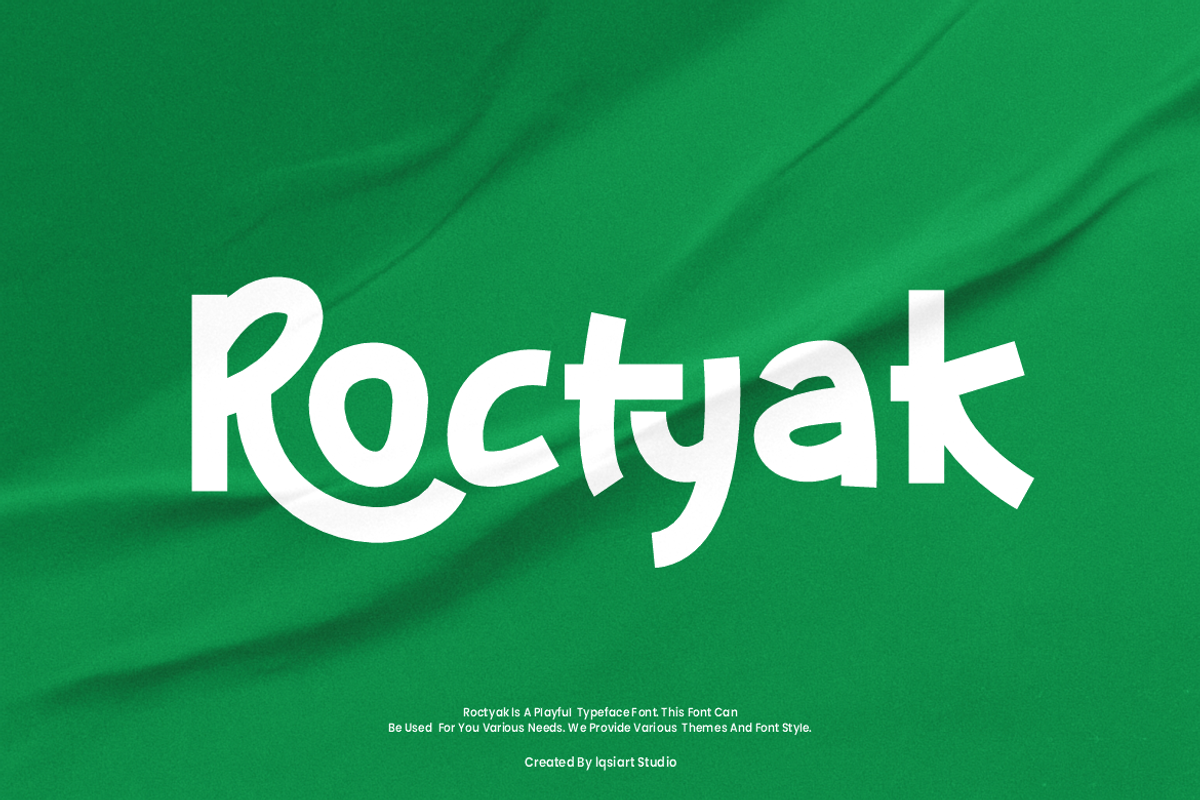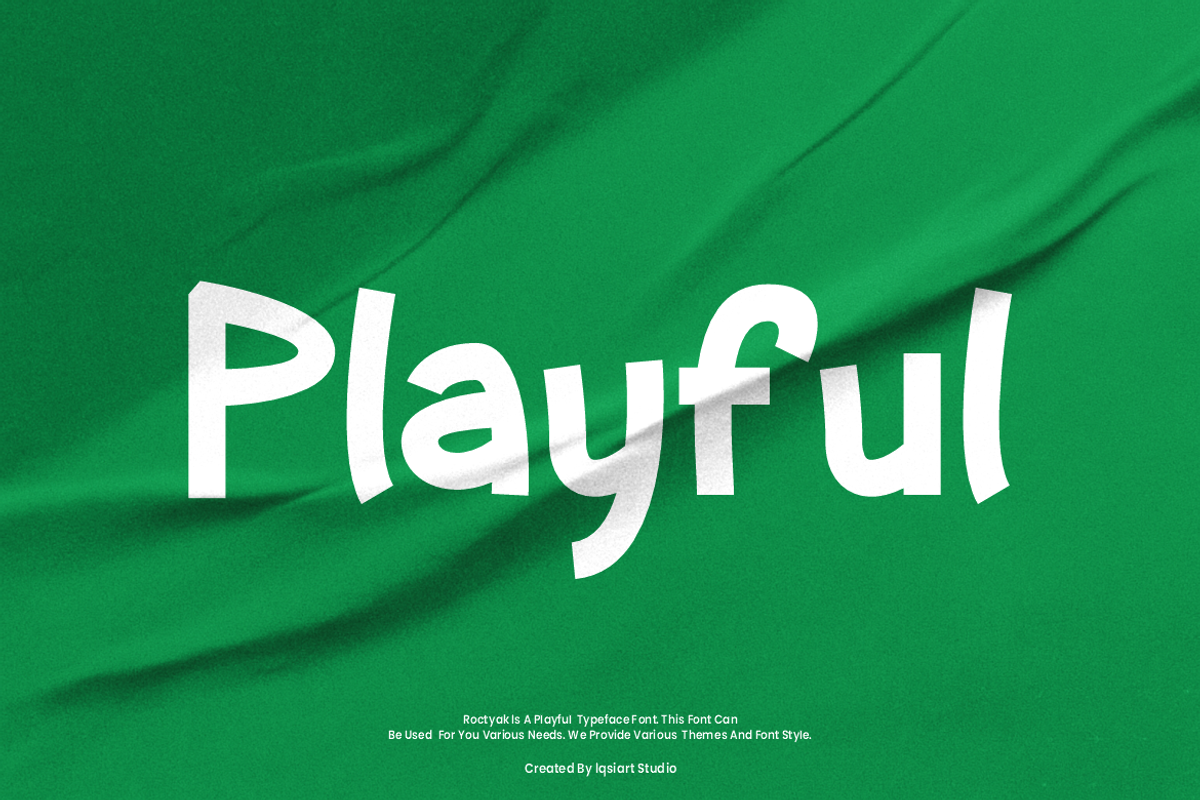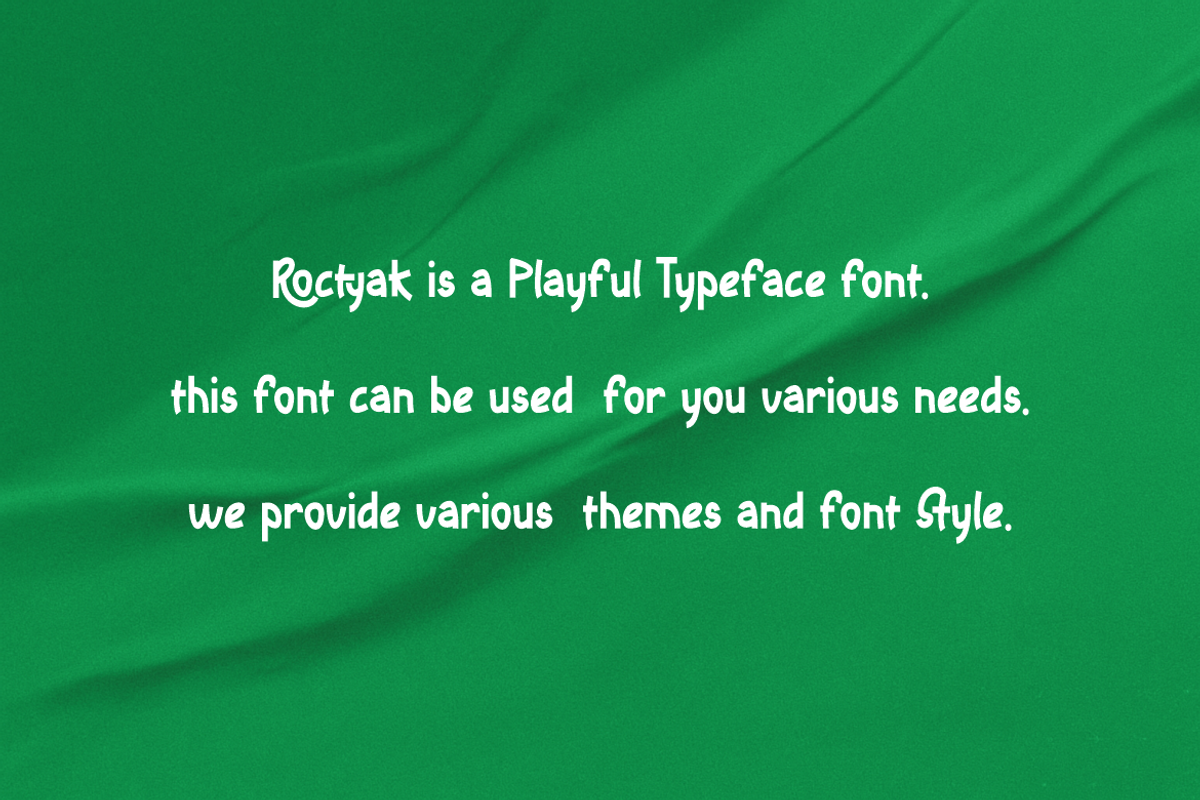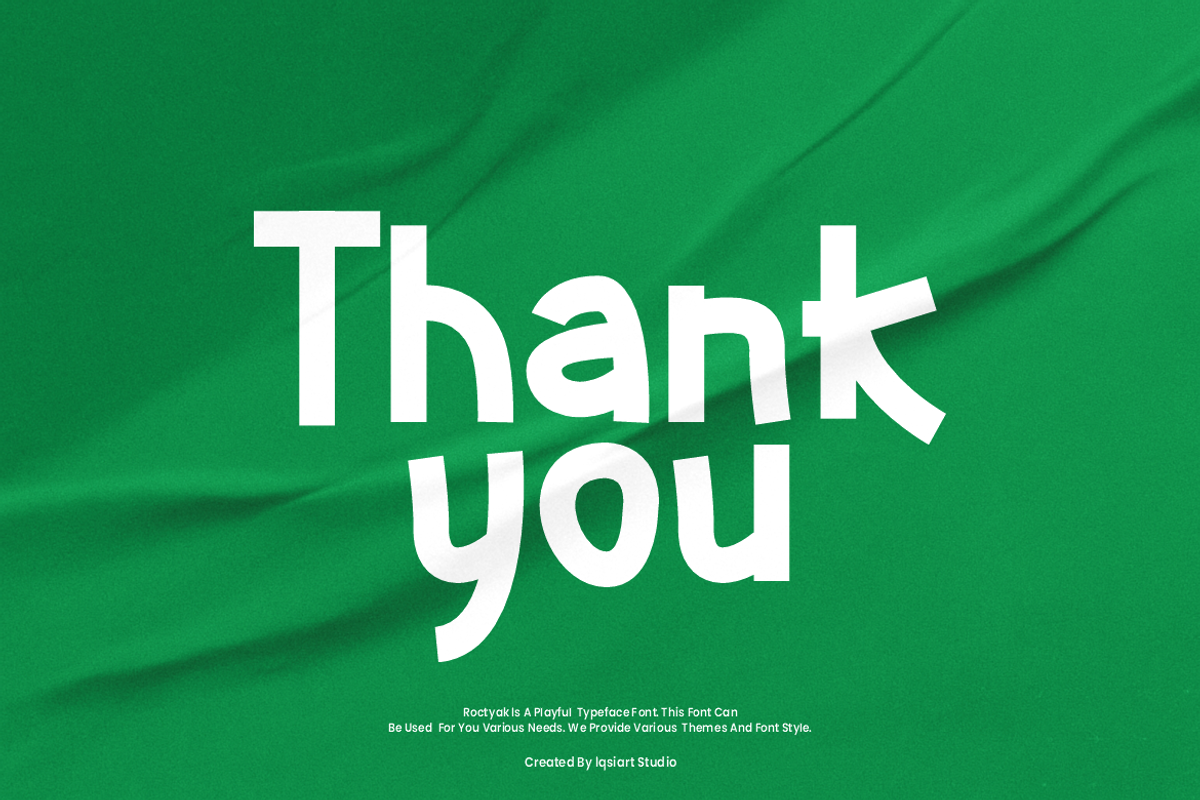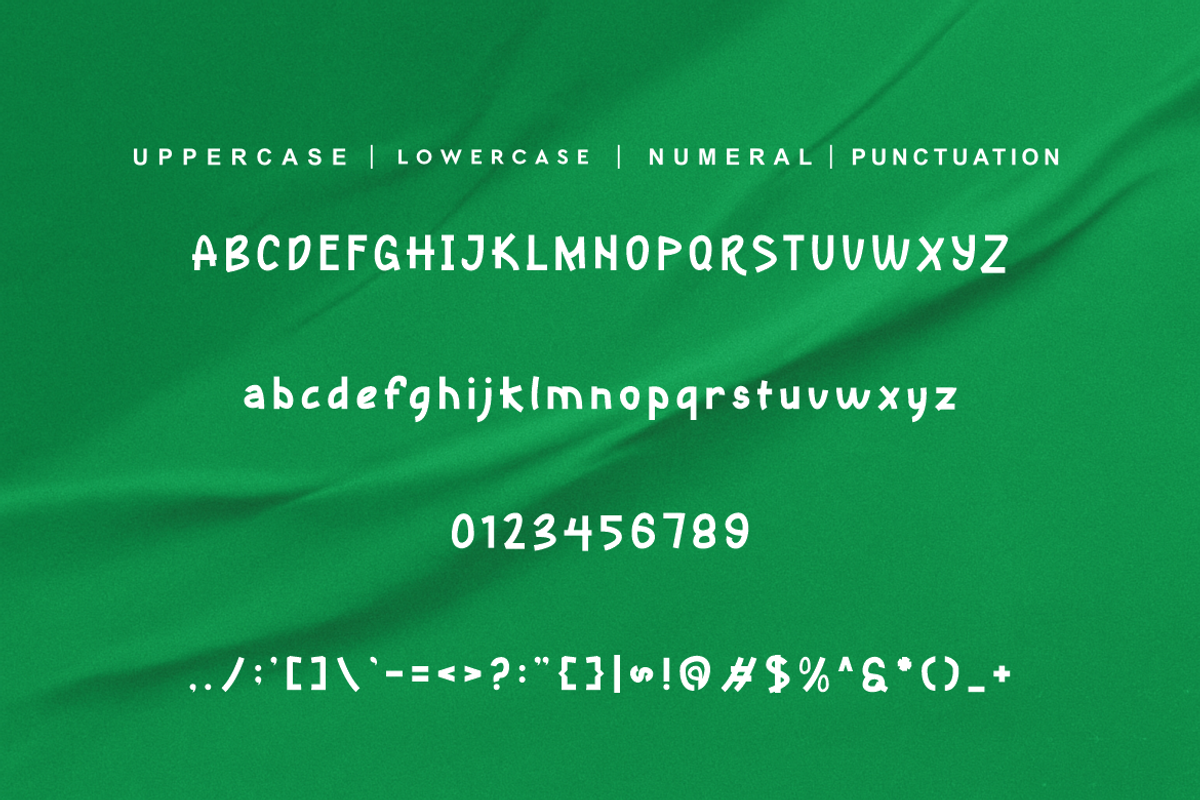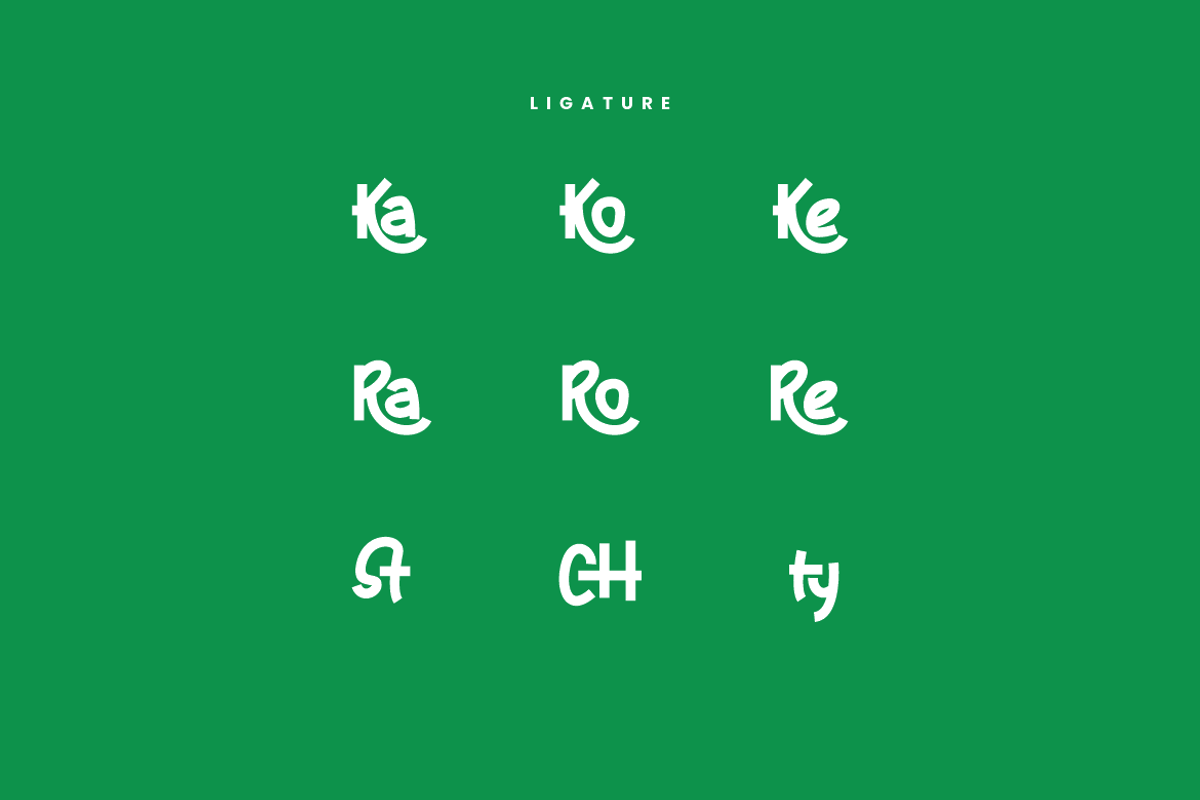
Roctyak - Comic Font
Roctyak Font is a best and authentic display font. This font can be used for your various needs. We provide various themes and font styles. visit our profile to get a wide variety of themes and different font styles you need.